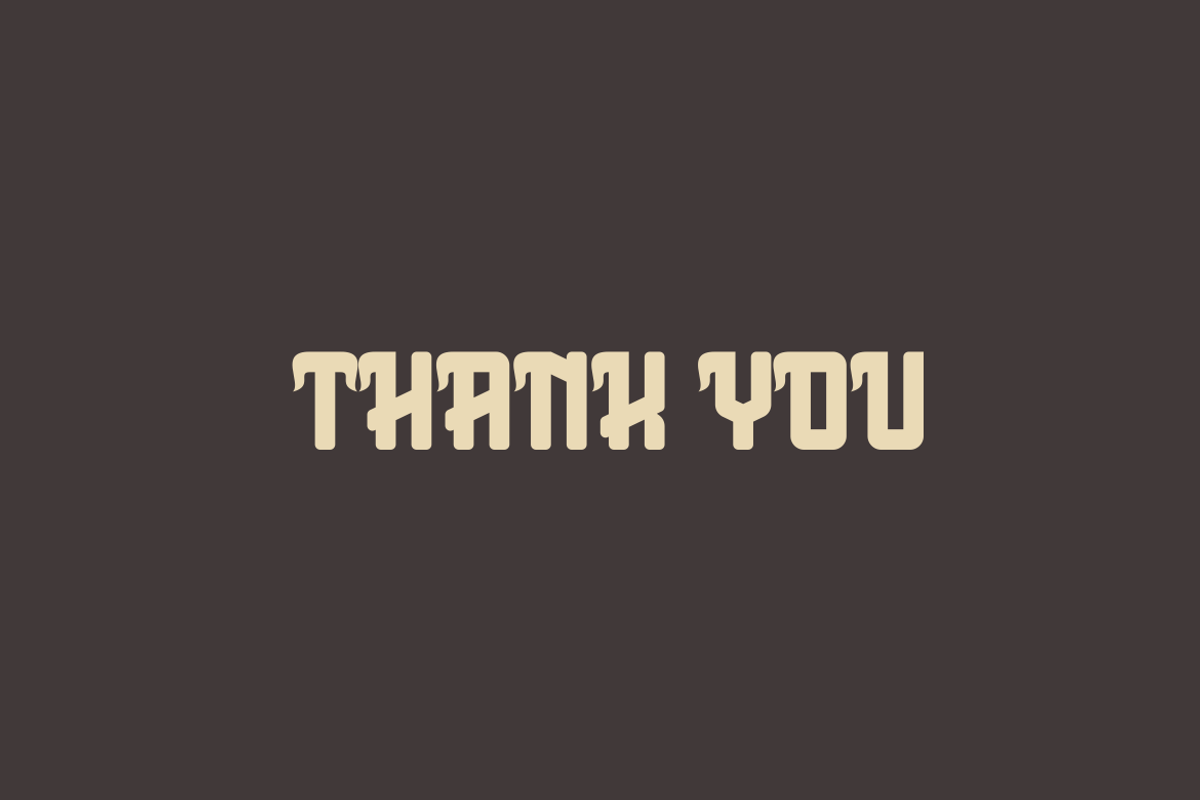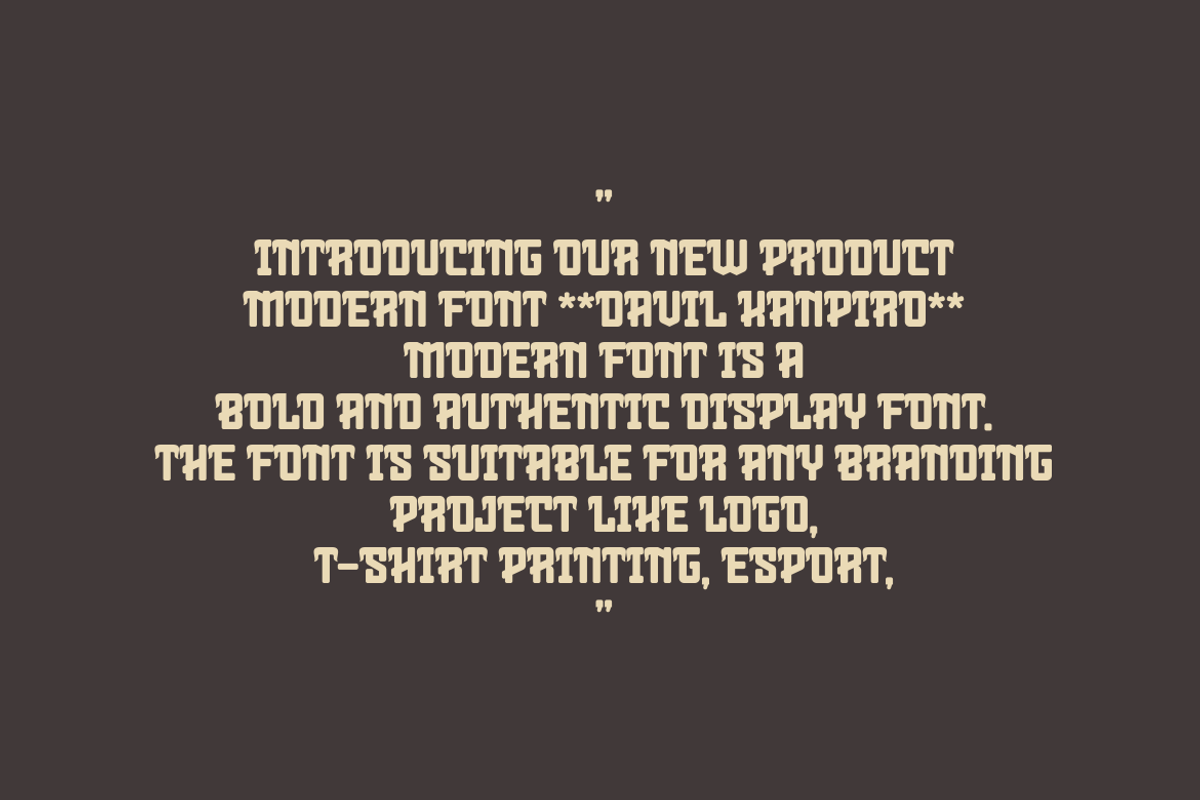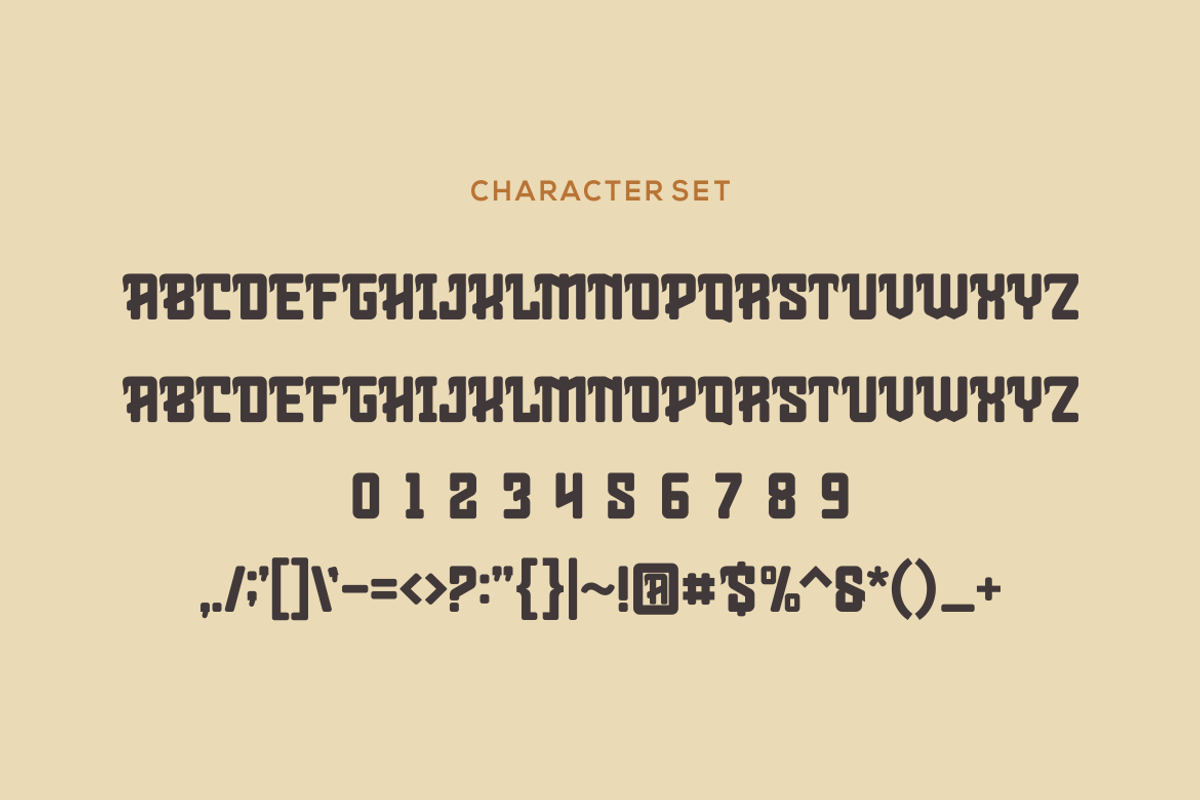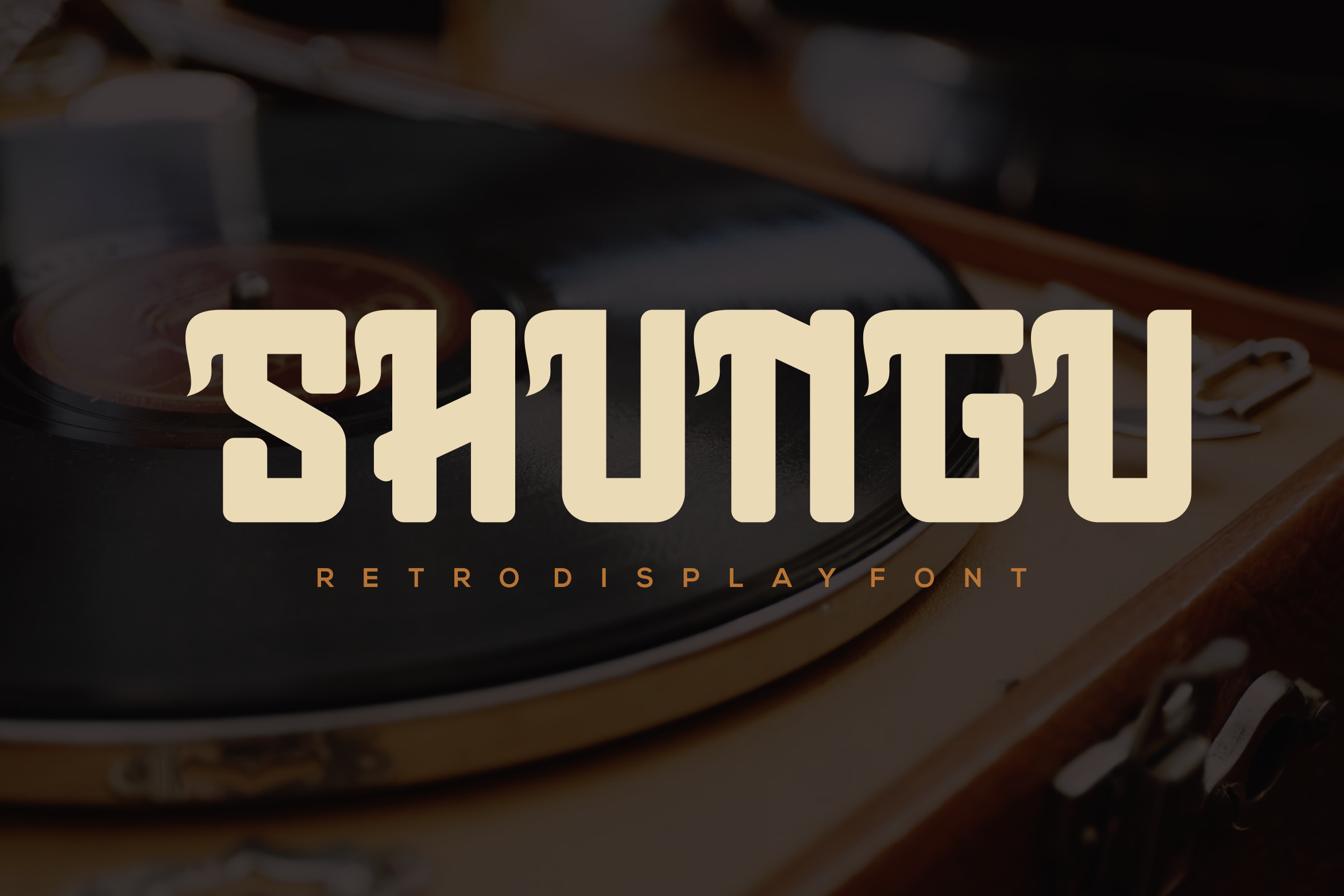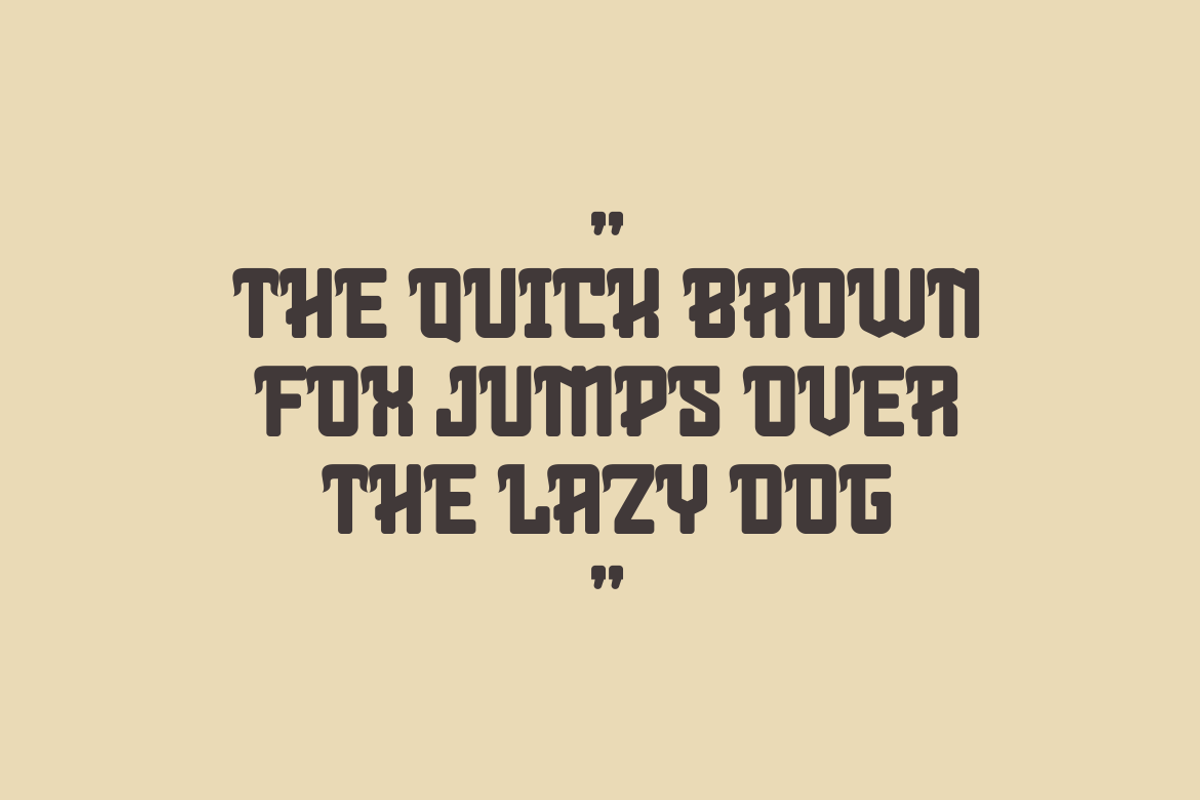
Shungu Font
Introducing our new product Shungu Font - Modern Font
Shungu Font - Modern Font is a bold and authentic display font. The font is suitable for any branding project like logo, esport, and many more. outstanding in a wide range of contexts.